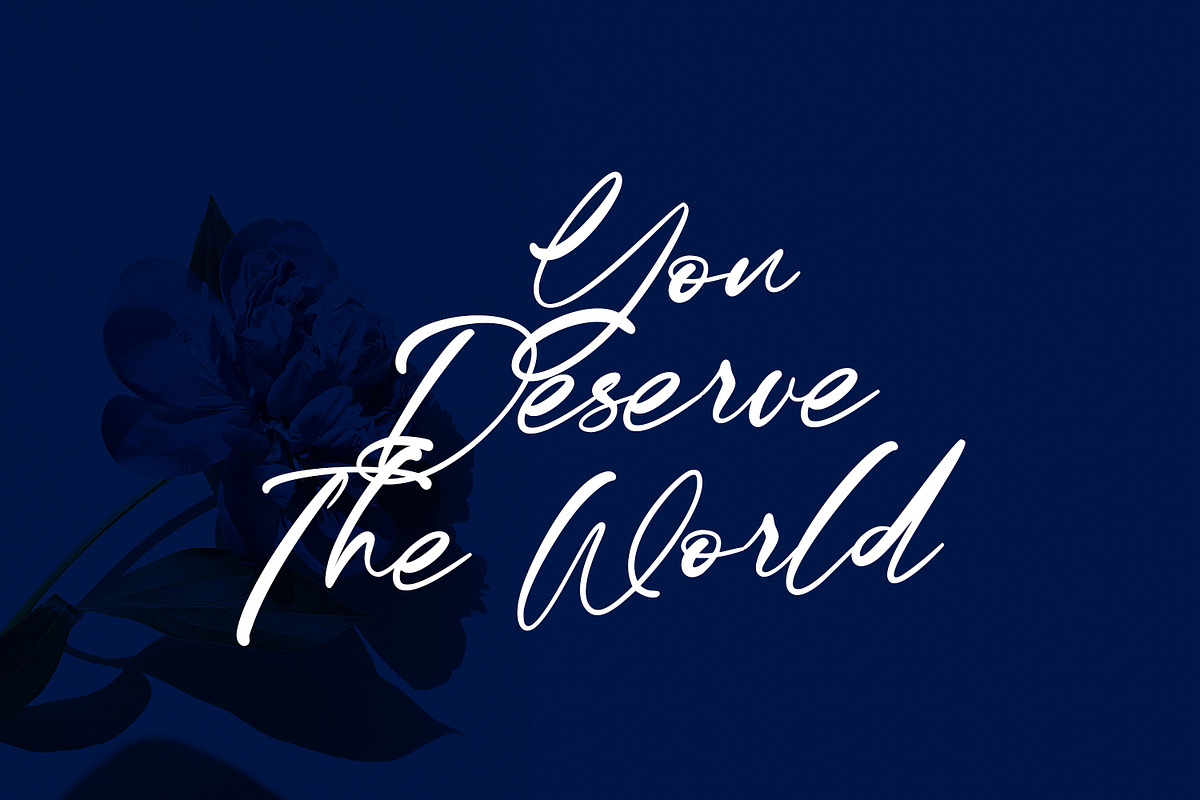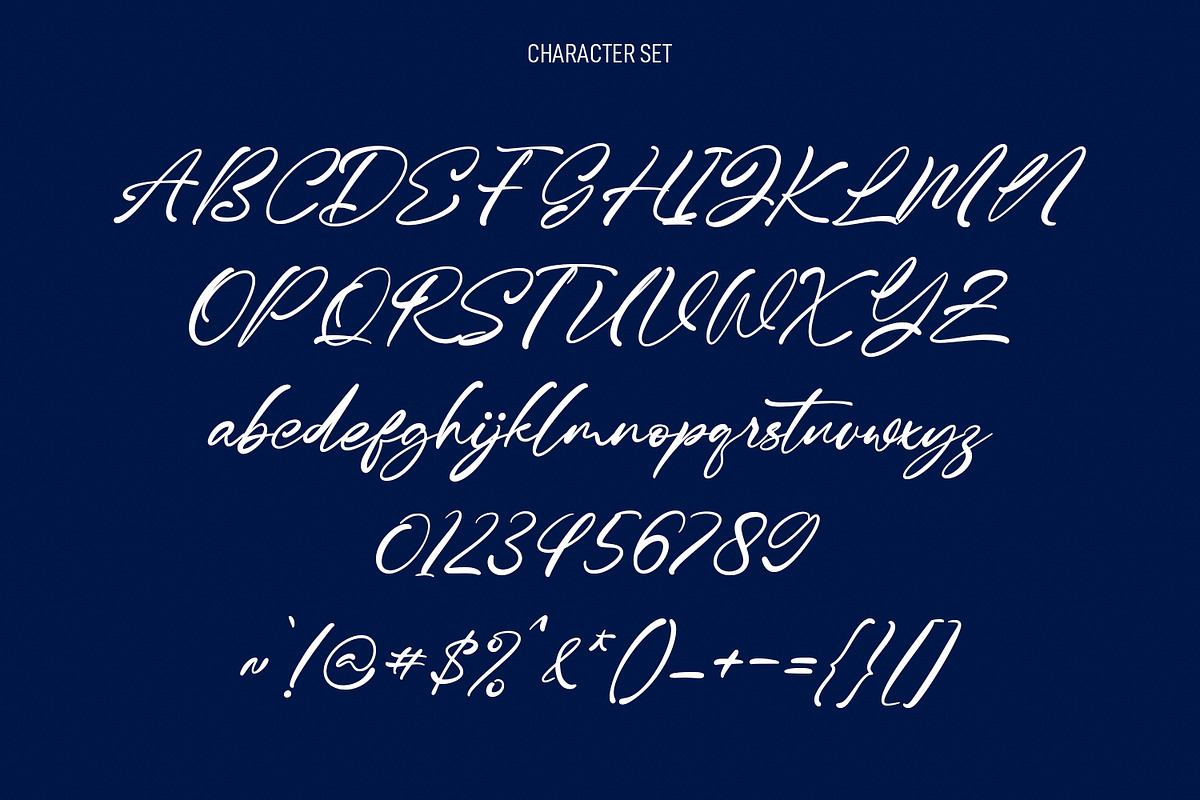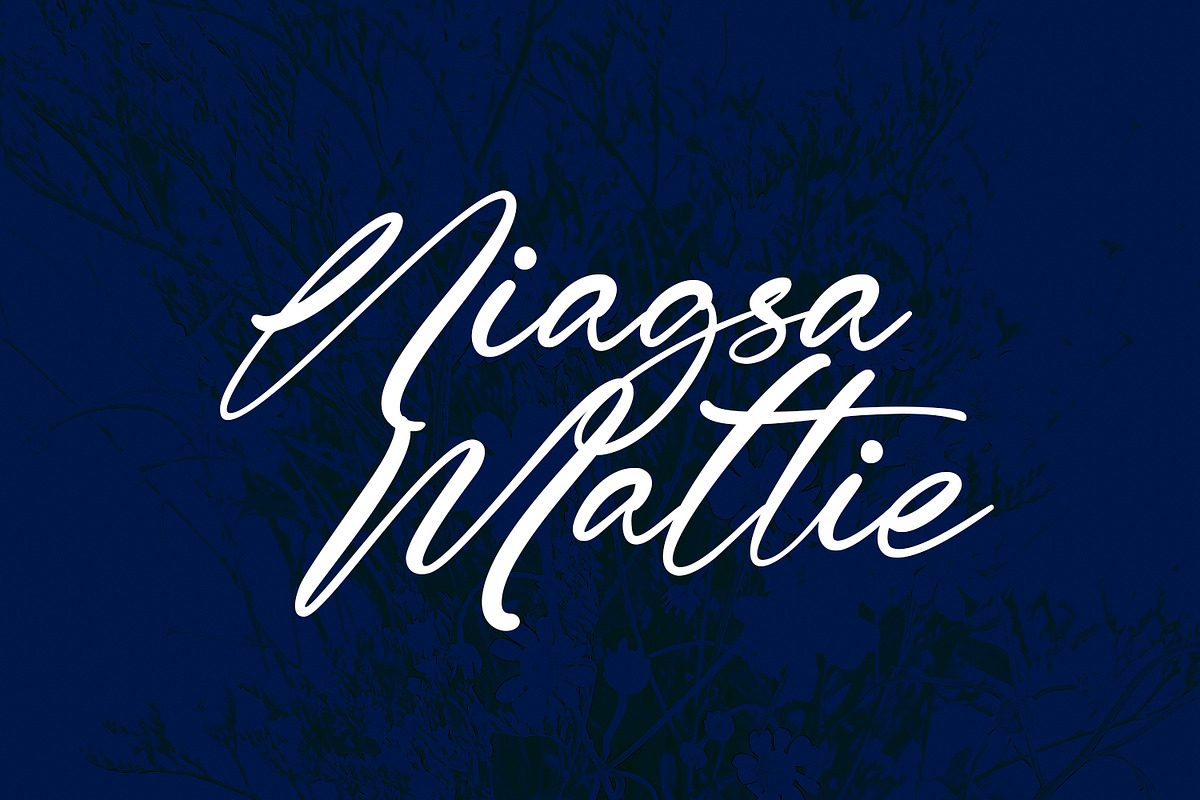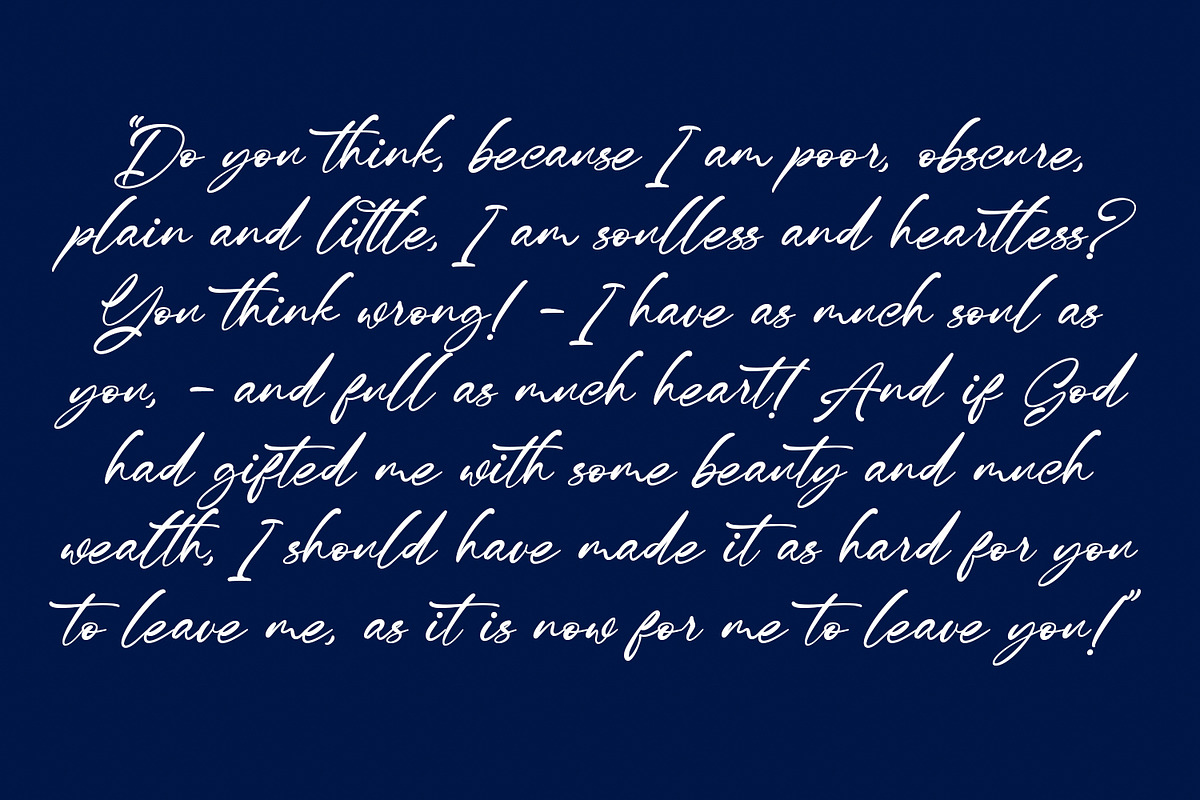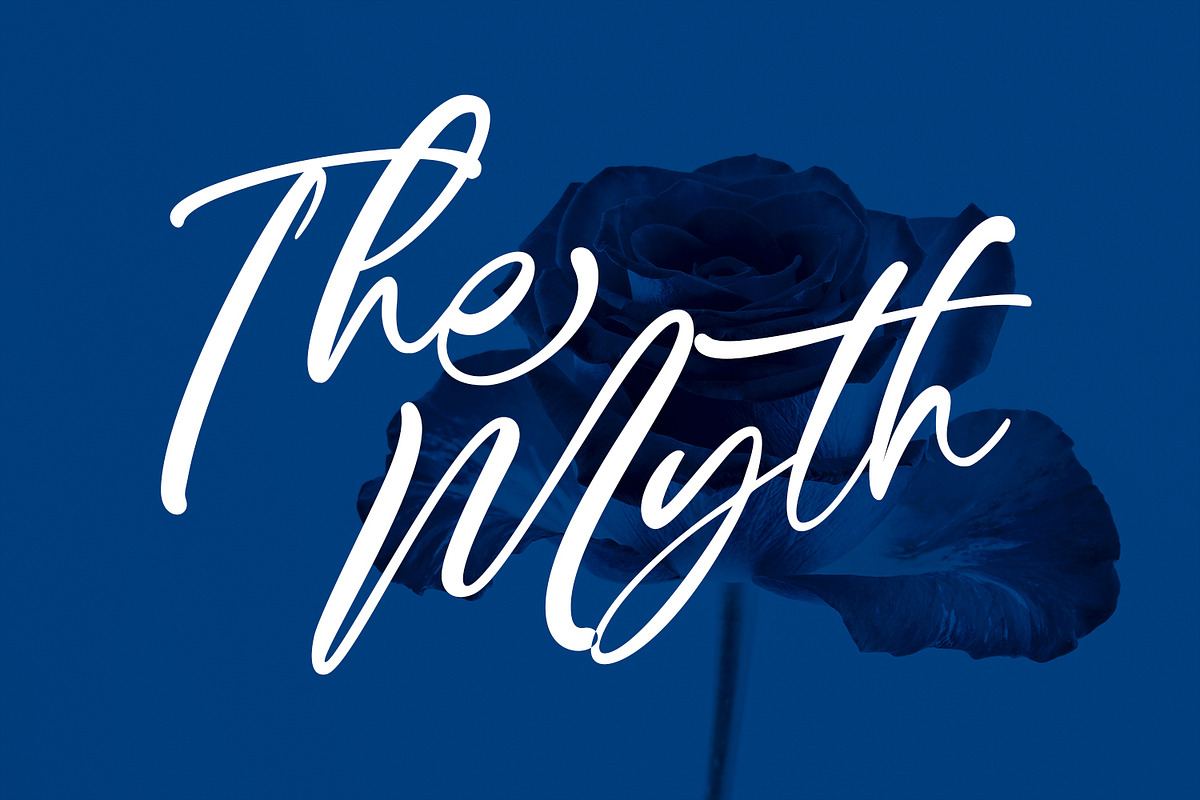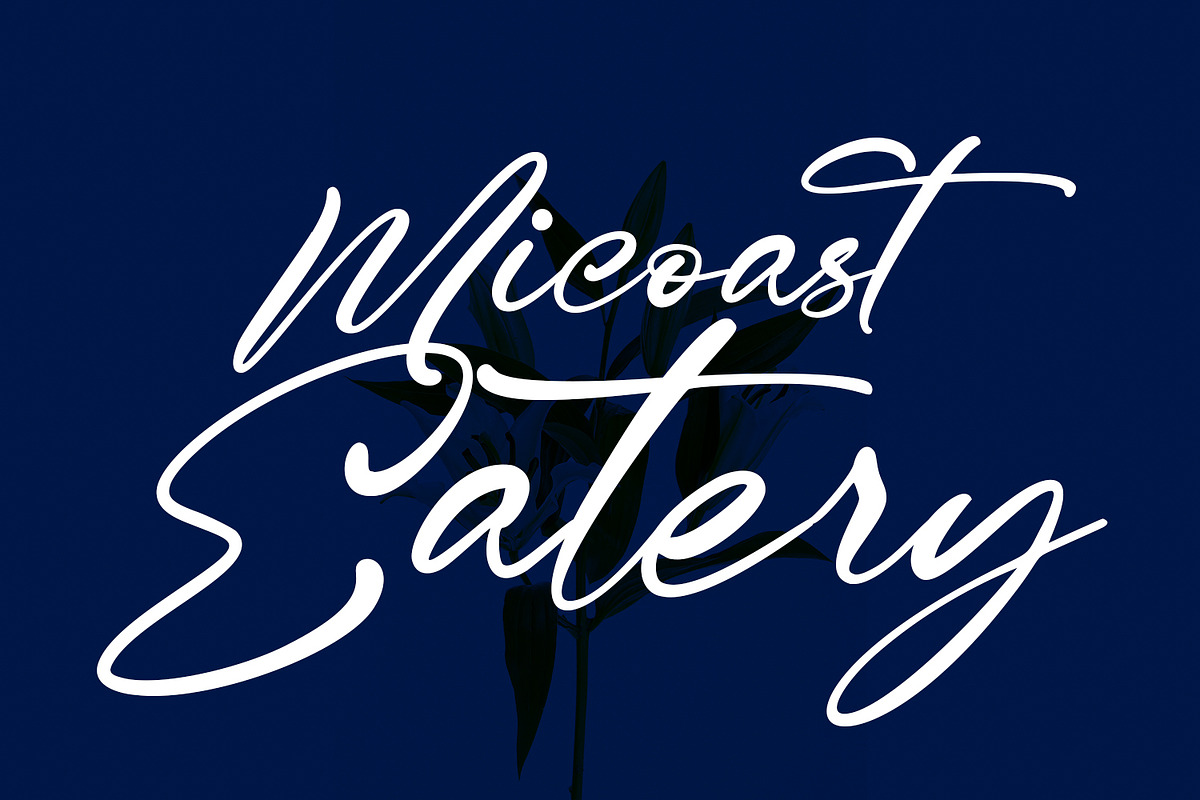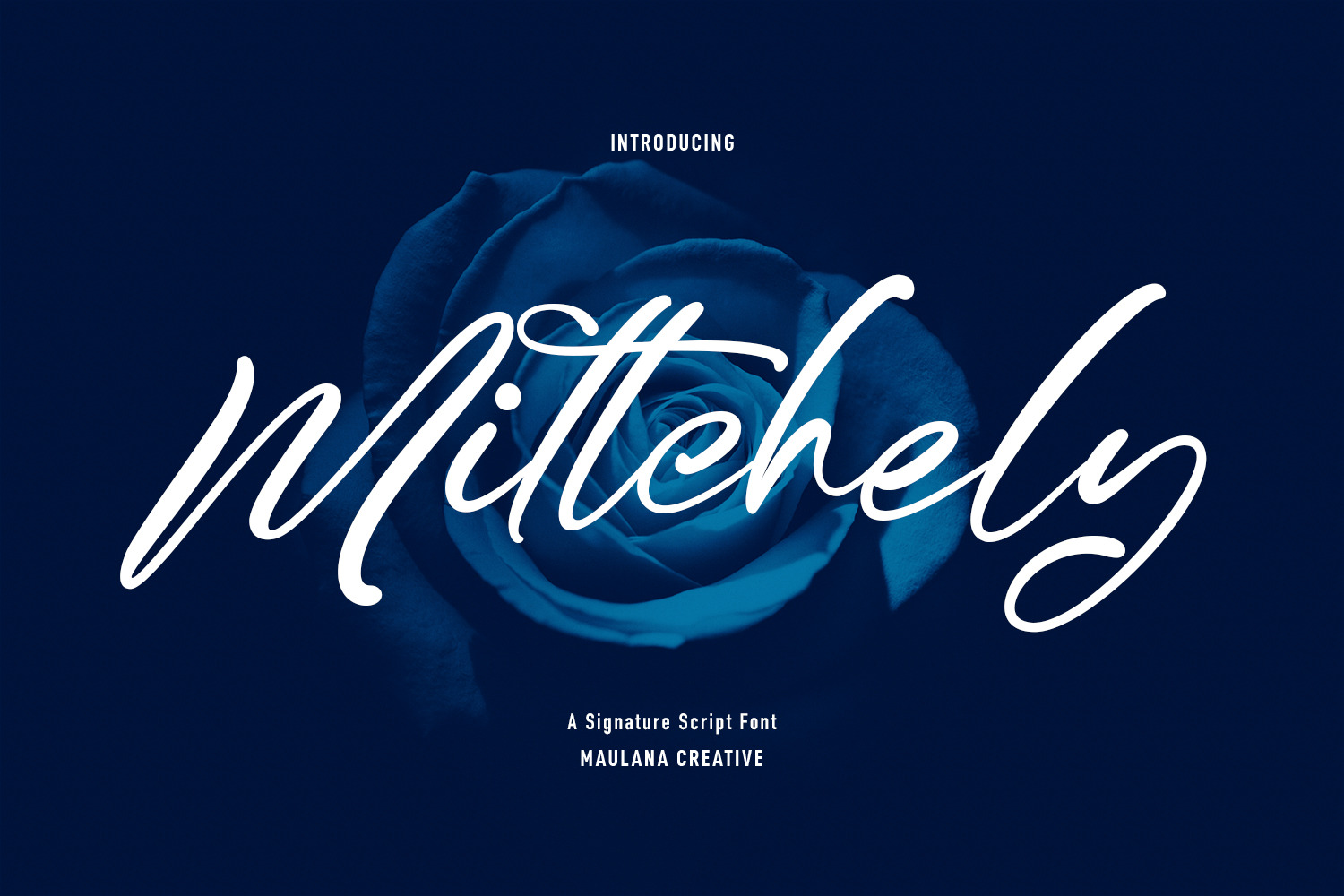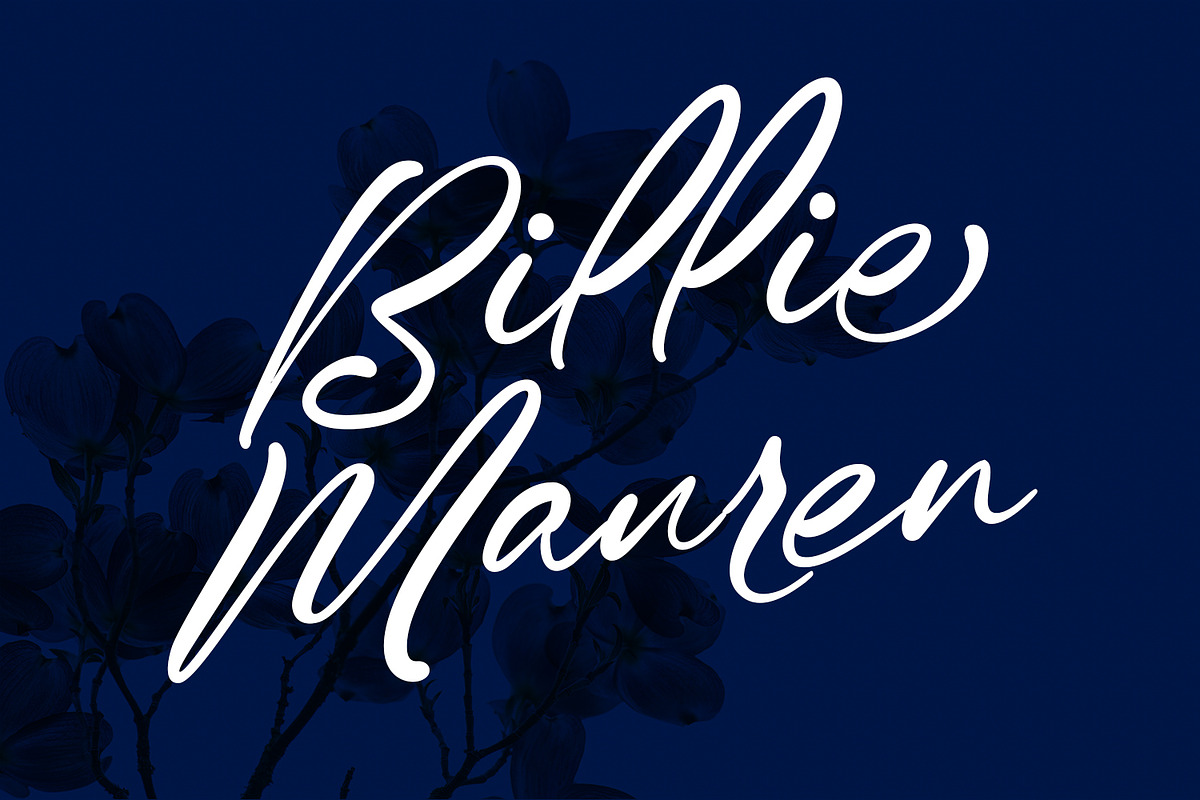
Mittchely Signature Script Font
Mittchely is an ink-is signature script font. With light contrast stroke, fun character with a bit of ligature and alternates. To give you an extra creative work. Mittchely font support multilingual more than 100+ language. This font is good for logo design, Social media, Movie Titles, Books Titles, a short text even a long text letter and good for your secondary text font with sans or serif. Make a stunning work with Mittchely font.